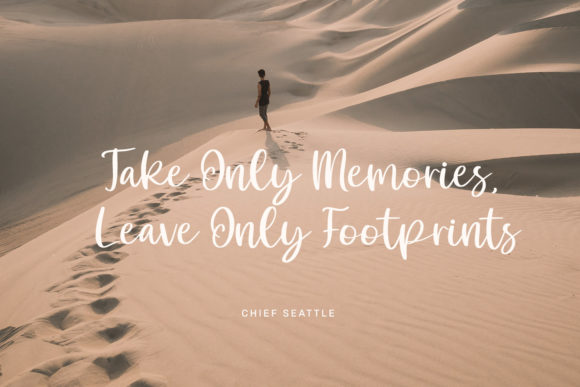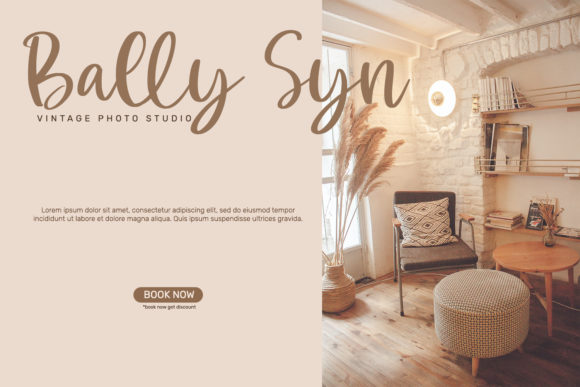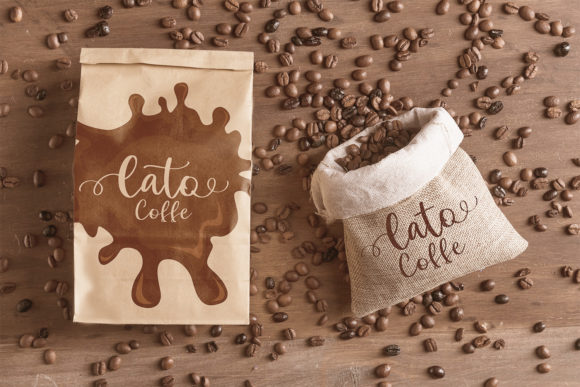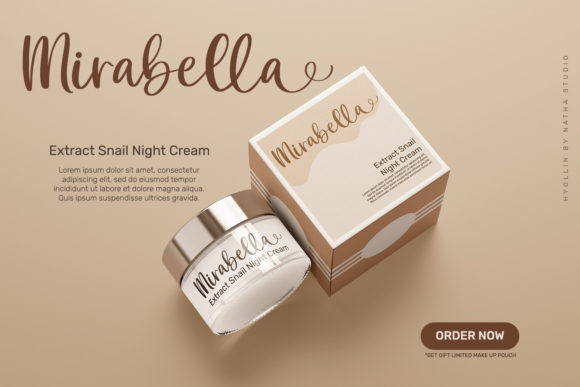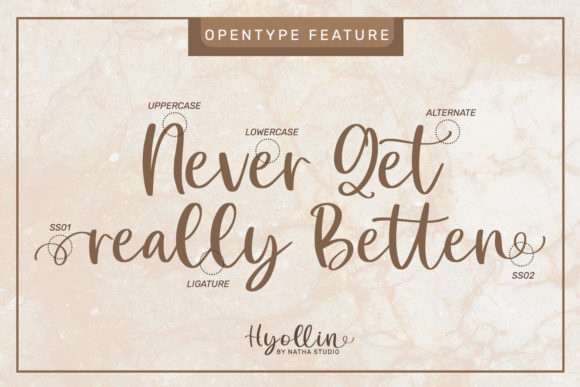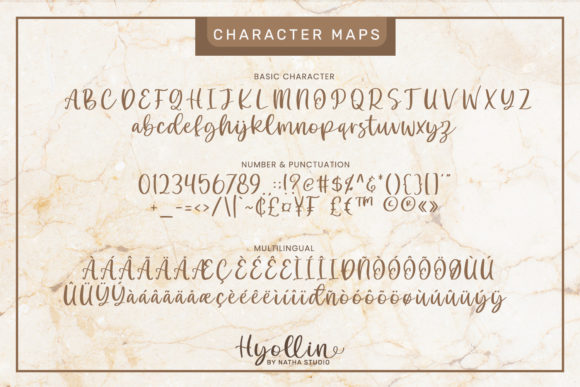
Introduction to Hyollin Font
Hyollin is an enchanting handwritten font.
This versatile script font has a wide spectrum of applications ranging from greeting cards to headlines Hyollin is PUA encoded which means you can access all glyphs and swashes with ease.
Key Features of Hyollin Font